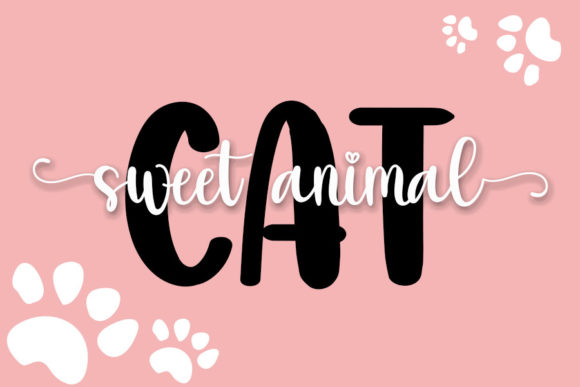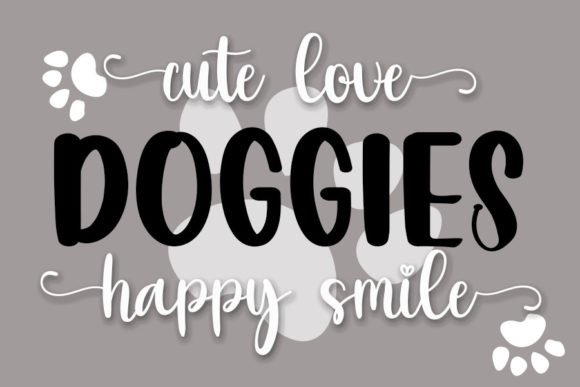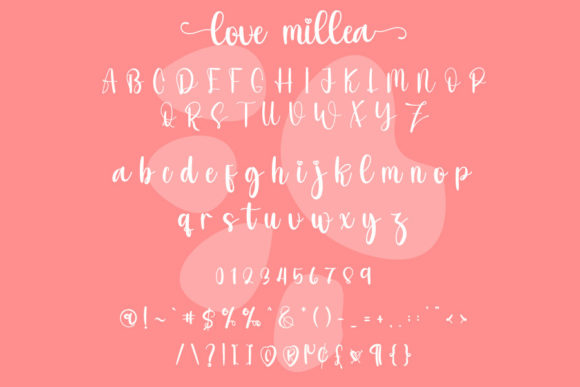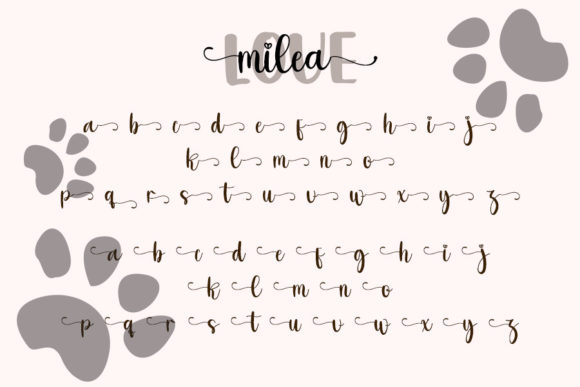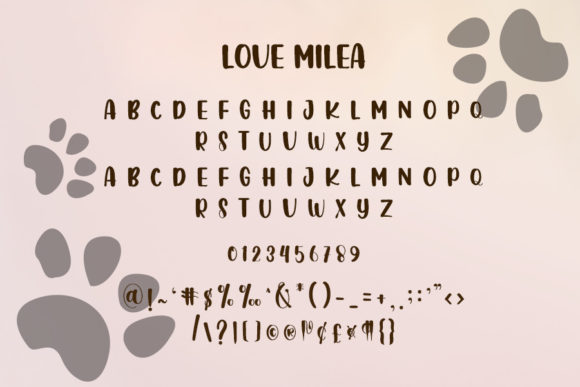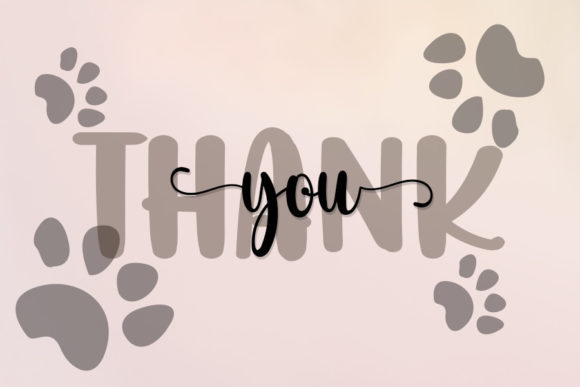
Introduction to Love Millea Font
As you sit at your desk, surrounded by scraps of paper, glue, and glitter, you finally feel inspired to start your next creative project. The idea is swirling in your head, and you can’t wait to bring it to life. You reach for your computer, eager to type out the perfect font to match your vision. And that’s when you stumble upon it – the perfect font that sets the tone for your entire project. Welcome to the world of Love Millea Font, a duo of fonts that will make your design shine.
With its high-quality design and PUA encoding, Love Millea Font is a valuable resource for designers looking to add a personal touch to their work. Whether you’re working on a free download or a commercial project, this font is sure to impress. Its transparent background and elegant style make it a perfect fit for any design.
Key Features of Love Millea Font
- High-quality design resource with a transparent background, perfect for creative projects.
- Includes 5 font styles, with a range of weights and styles to suit various design needs.
- Unique characteristics include elegant, cursive script and a classic feel, making it suitable for various design applications.
Honest Review: Love Millea Font
I recently had the chance to work with the Love Millea Font, and I must say it’s a fantastic addition to any design resource library. As a designer, I’m always on the lookout for high-quality fonts that can elevate my creative projects and make them stand out.
One of the standout features of the Love Millea Font is its elegant and modern aesthetic. ✨ The font’s clean lines and subtle curves make it perfect for a wide range of applications, from branding and packaging to digital design and print materials.
Here are some of the key benefits of using the Love Millea Font:
- High-quality design: The font is well-crafted and looks great on both screens and print materials.
- Transparent background: The font has a transparent background, making it easy to layer over images or other design elements.
- ⚠️ Limited language support: The font only supports a limited range of languages, which may be a drawback for designers who work with multiple languages.
- ⚠️ Not ideal for bold or heavy text: The font’s delicate design may not be suitable for bold or heavy text, which could make it difficult to read.
To get the most out of the Love Millea Font, use it in combination with a transparent background to create visually appealing designs. You can also experiment with different font sizes and styles to add depth and interest to your designs.
The Love Millea Font is a versatile design resource that can be used in a variety of creative projects, including logos, business cards, and social media graphics. It is particularly well-suited for use in digital designs that require a clean and modern look.